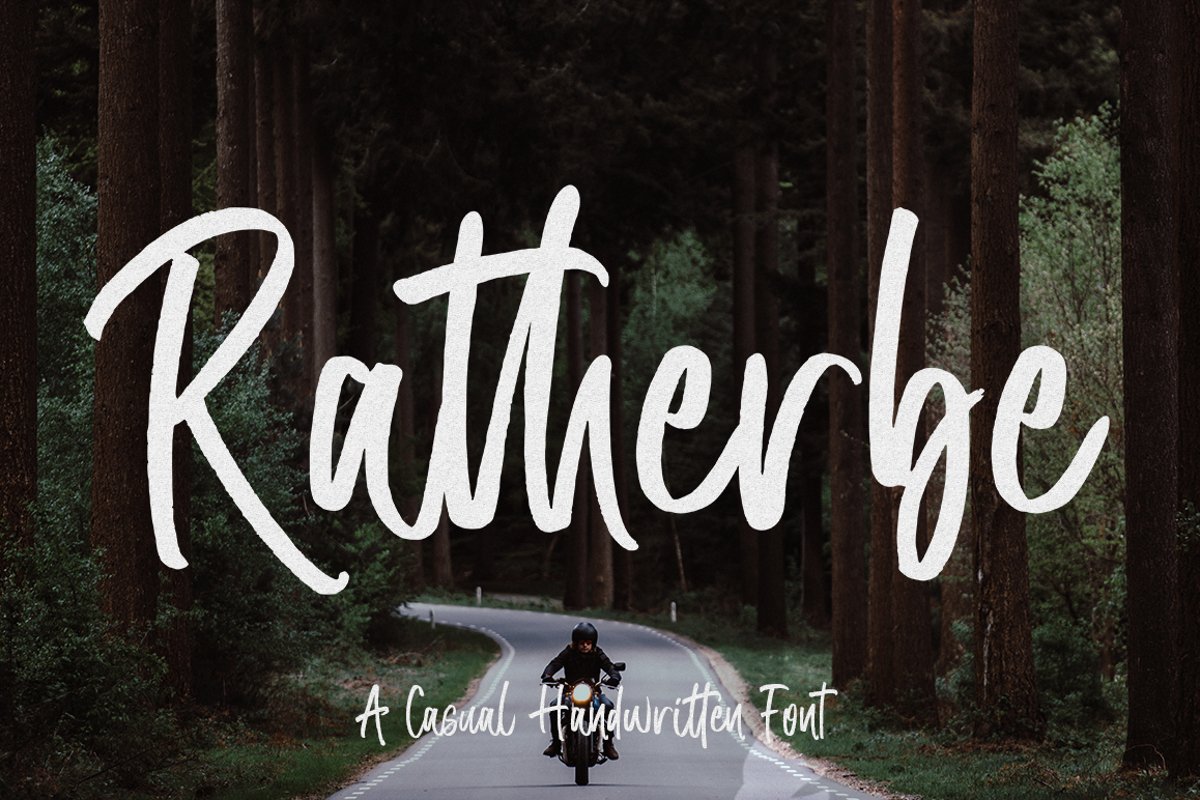
Ratherbe Script
Ratherbe
Ratherbe is a new modern brush font with an irregular base line. A contemporary approach to design, natural handmade, suitable for use in designs for clothing, invitations, book titles, stationery designs, quotes, branding, logos, greeting cards, T-shirts, packaging designs, posters, and more.
Complete with upper and lower case letters, and multi-language support, numbers, punctuation and some binders.